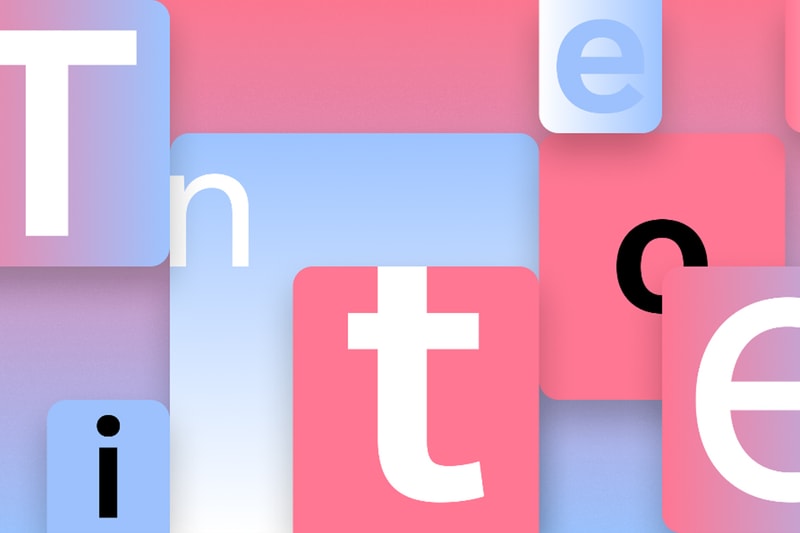
Microsoft Is Inviting the Internet to Vote for Its Next Default Font
Commissioning a set of five custom, original fonts for selection.
Microsoft is finally choosing a new default font, and it wants your help in making the decision.
14 years after Calibri took over from Times New Roman as the operating system’s default font, the tech giant is finally looking to change things up with a new set. To do so, it commissioned a team of designers who came up with five new custom, original fonts named Tenorite, Bierstadt, Skeena, Seaford and Grandview. All five offer unique and refreshing takes on what makes a good, standard font, and Microsoft is now inviting the Internet to help them choose the best one.
“While default fonts may not have the same flair as some of their more eye-catching cousins (we’re looking at you, Bauhaus 93 and Showcard Gothic), they communicate a distinct personality in their own quiet way—a personality that by extension becomes our personality as well,” writes Microsoft. “A default font is often the first impression we make; it’s the visual identity we present to other people via our resumes, documents, or emails. And just as people and the world around us age and grow, so too should our modes of expression.”
To check out the five new fonts and join in on the conversation on which should be Microsoft’s next default font, you can head over to the company’s website.